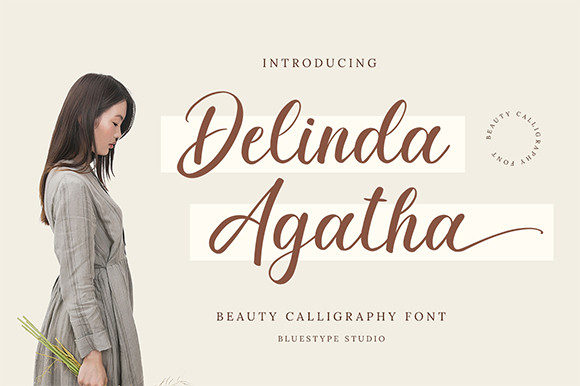
Embark on a Typographic Adventure with Delinda Agatha Font, a Marvelous Script Creation!
Step into the enchanted realm of typography with Delinda Agatha, a captivating script font that will ignite your creative spirit. This exquisite font captivates with its delicate strokes, graceful curves, and enchanting flow, leaving an indelible mark on your designs. Experience the allure of Delinda Agatha, a font that is both elegant and playful, traditional and modern, making it an ideal choice for a multitude of projects.
This mesmerizing font family invites you to express your individuality and ignite your passion for visual storytelling. Whether you're a seasoned designer seeking to elevate your projects or a budding artist yearning to leave a lasting impression, Delinda Agatha is your perfect companion. Let your imagination run wild as you explore the boundless possibilities that await you with this enchanting script.
With Delinda Agatha, you'll discover a world of typographic wonders, where words dance with grace and elegance. Create breathtaking logos that command attention, craft enchanting invitations that captivate your guests, and design social media posts that leave an unforgettable impact. Unleash your creativity and let your message shine through the enchanting allure of Delinda Agatha.
Beyond its aesthetic beauty, Delinda Agatha is a font of remarkable versatility. Its intricate details and flowing characters make it a perfect choice for a variety of projects, from delicate wedding invitations to bold and eye-catching branding. Its PUA encoding ensures effortless access to a vast collection of glyphs and swashes, allowing you to add intricate embellishments and flourishes to your designs with just a few clicks.
Fall in love with Delinda Agatha, a font that will transform your designs into works of art. Let your imagination soar as you discover the endless possibilities that await you with this magical script. Embrace the beauty of Delinda Agatha and take your creative journey to new heights.